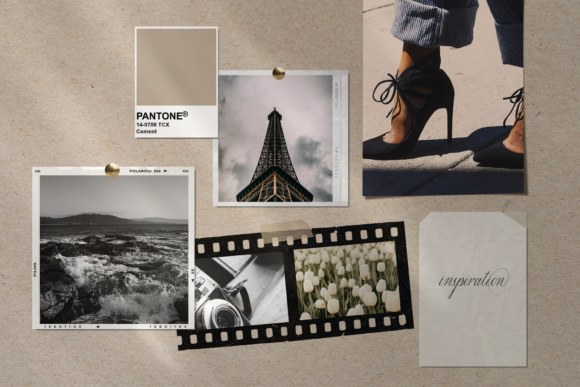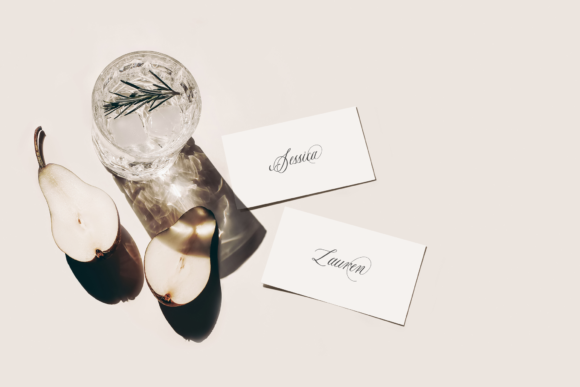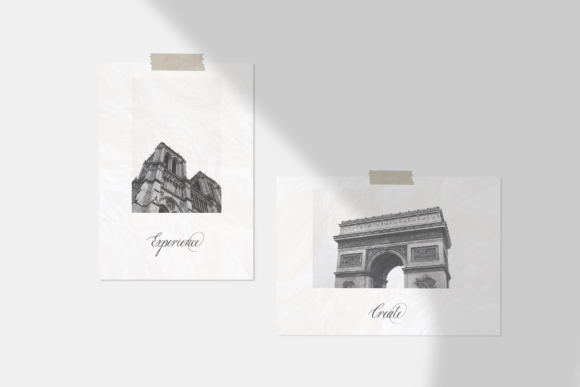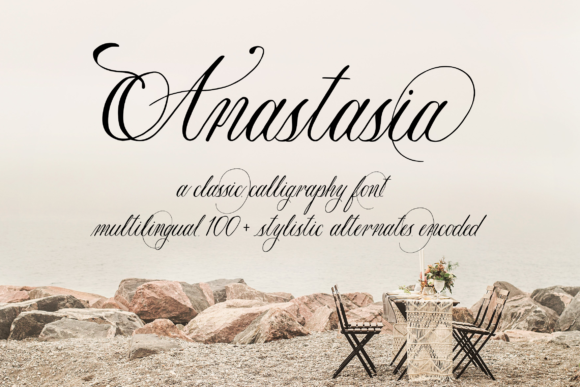
The Anastasia Font: A Whimsical Script to Elevate Your Designs
I’ll never forget the time I was working on a project for a client who wanted a custom logo with a relaxed, elegant vibe. I scoured the internet for the perfect font, but nothing seemed quite right. That was until I stumbled upon the Anastasia font. ✨ This beautiful script font has been a game-changer for my design workflow, and I’m excited to share its features and benefits with you.
An Honest Review of Anastasia Font
- ✨ The Anastasia font has a lovely, whimsical style that’s perfect for creating elegant and relaxed designs.
- ✅ It’s incredibly versatile and can be used for a wide range of projects, from logos and branding to invitations and social media graphics.
- 💻 The font is PUA encoded, making it easy to access all the glyphs and swashes.
- 🎨 The font’s OpenType features allow for endless creative possibilities.
While the Anastasia font is amazing, there are a few things to keep in mind: ⚠️
- 🤔 Some users may find the font’s relaxed theme too casual for certain projects.
- ⚠️ The font’s script style may not be suitable for very long blocks of text.
A Practical Guide to Using Anastasia Font
The Story Behind Anastasia Font
The Anastasia font was designed by a team of typographers who wanted to create a beautiful, elegant script font that would evoke the feeling of relaxation and sophistication. The font’s creator was inspired by the beauty of handwritten script and the elegance of traditional typography. With its unique blend of whimsy and refinement, the Anastasia font is sure to become a favorite among designers and crafters.
Q: What is the Anastasia font best used for?
A: The Anastasia font is best used for designs that require a relaxed, elegant vibe, such as logos, branding, invitations, and social media graphics.
Q: Is the Anastasia font suitable for long blocks of text?
A: While the Anastasia font is beautiful, it’s not ideal for long blocks of text. Its script style is better suited for short, elegant phrases or sentences.
Q: Is the Anastasia font easy to read?
A: Yes, the Anastasia font is designed to be easy to read, even at smaller sizes. Its clear, elegant script style makes it perfect for designs that require a touch of sophistication.